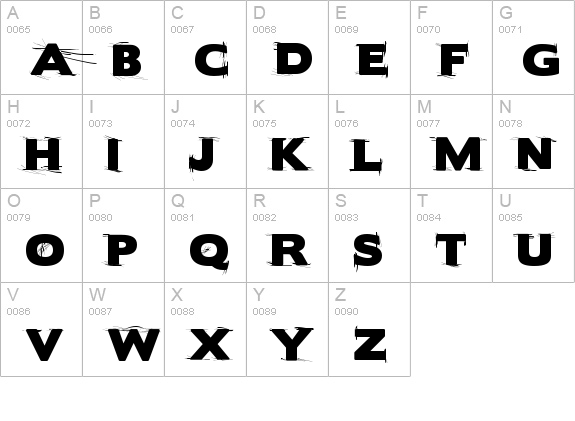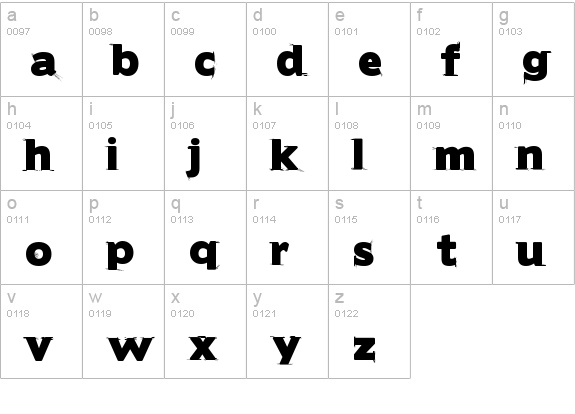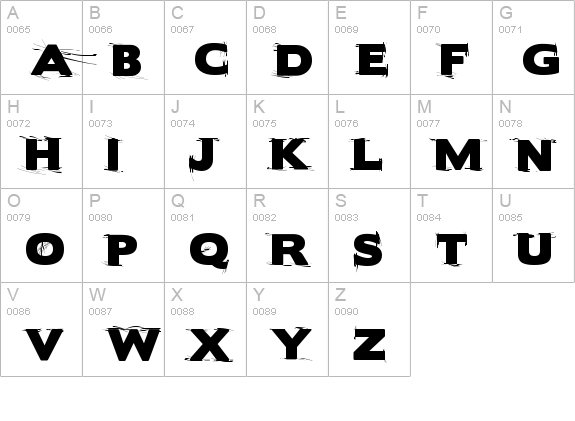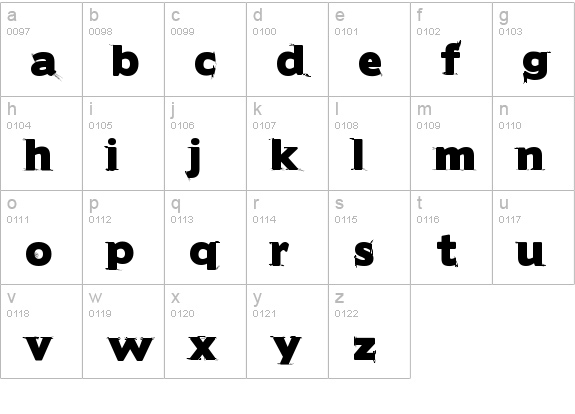
BorisBlackBloxxDirty Font Details
BorisBlackBloxxDirty font is a bold and edgy typeface that exudes a sense of raw energy and creativity. With its rugged and distressed appearance, this font is perfect for making a statement in your designs. The uneven lines and rough texture give it a unique and rebellious vibe, making it stand out from the crowd. Best of all, BorisBlackBloxxDirty font is available for free at FontsMarket.com. You can easily download and use this dynamic font to add a touch of urban flair to your projects. Whether you're working on posters, logos, or branding materials, BorisBlackBloxxDirty font will help you make a bold statement and leave a lasting impression. Let your creativity shine with this striking font that is sure to grab attention and make a statement.